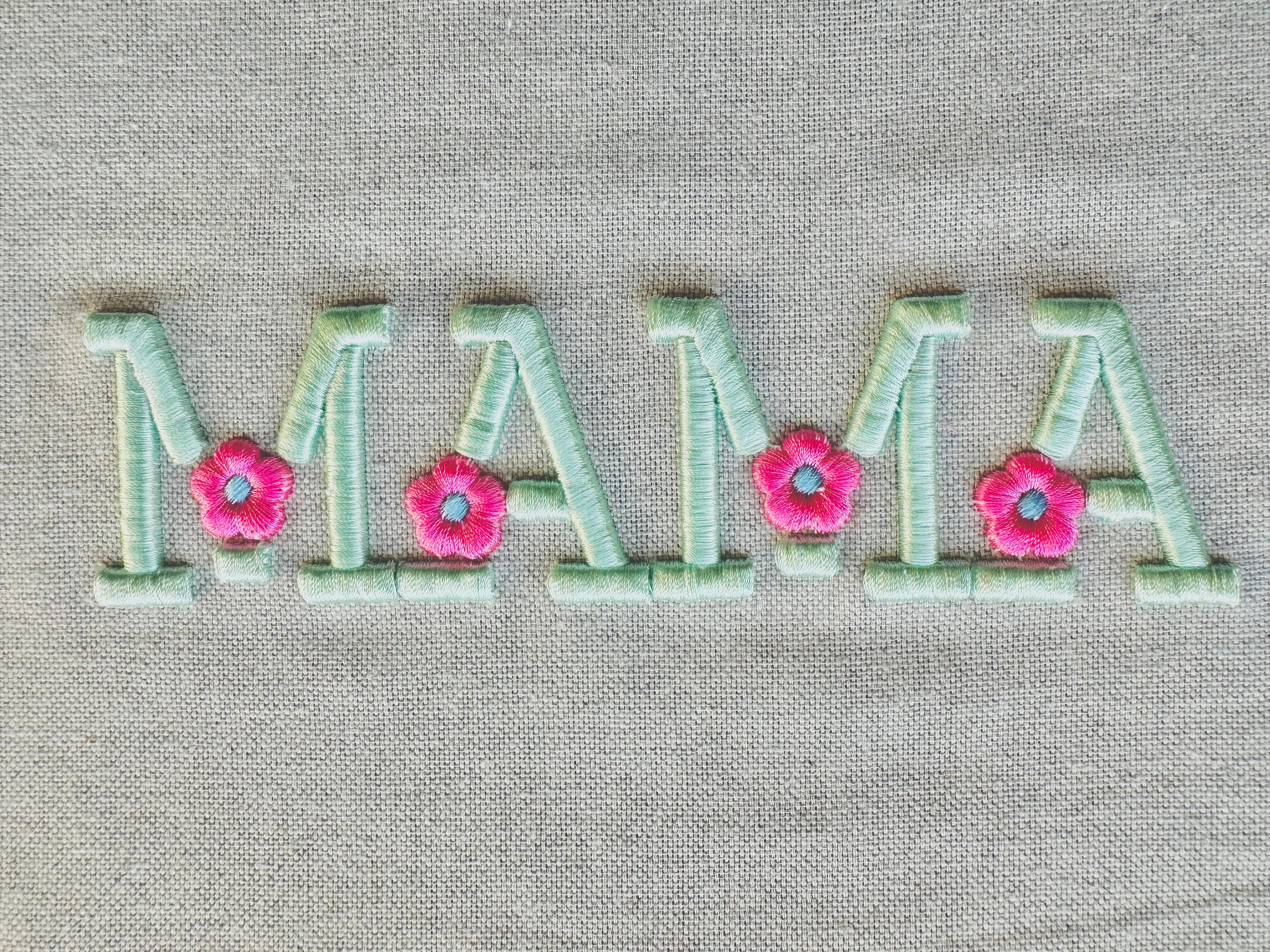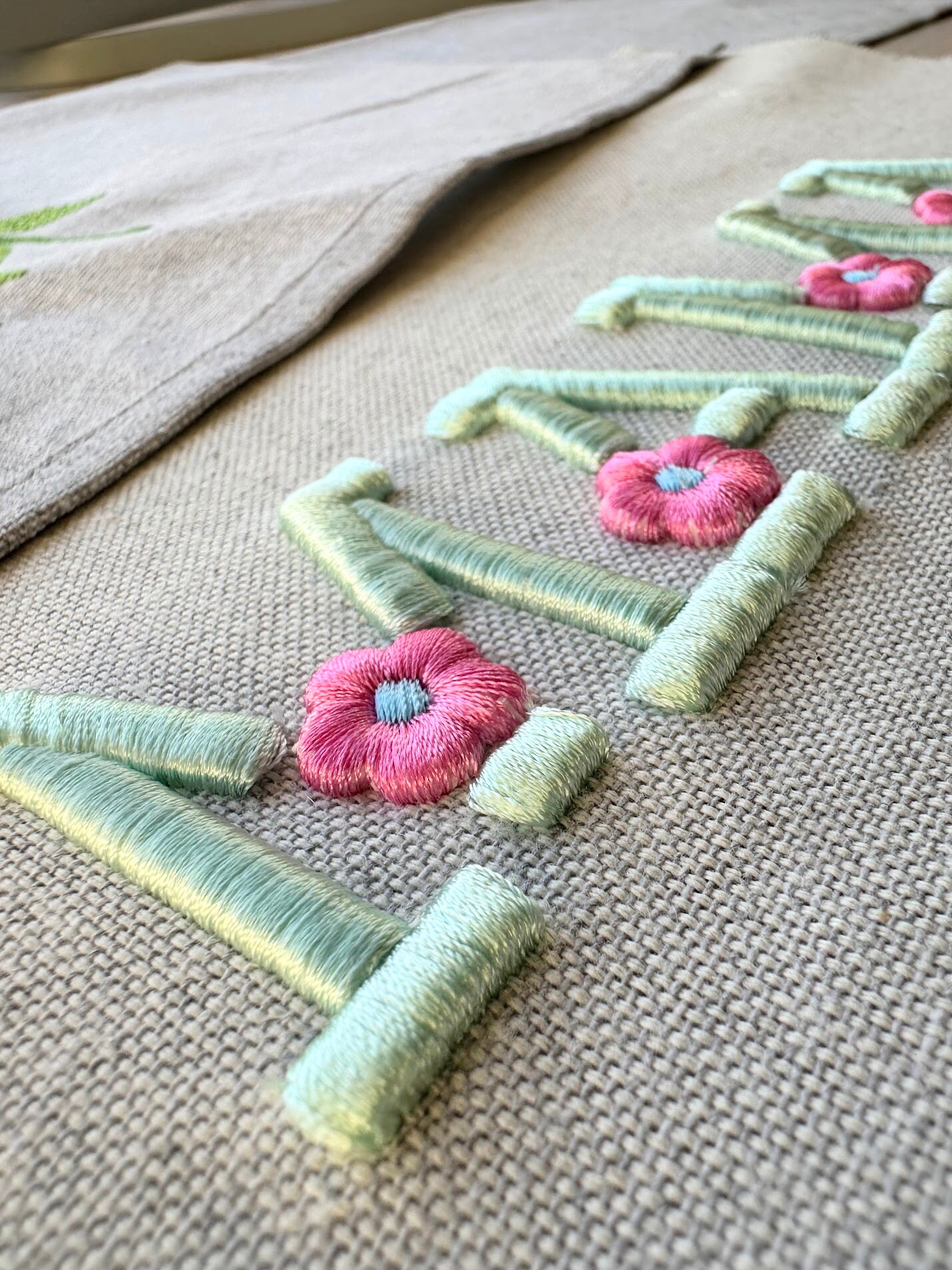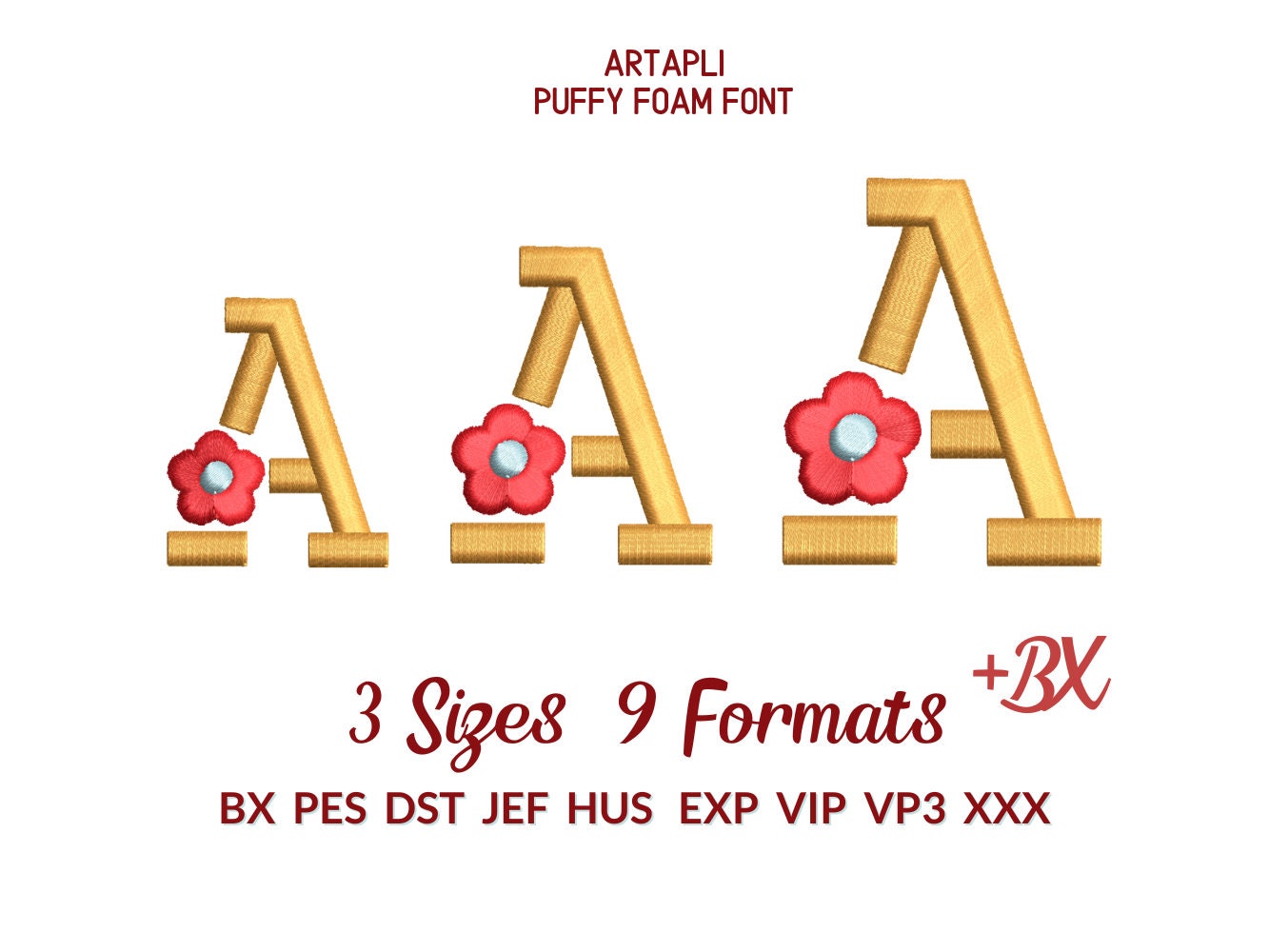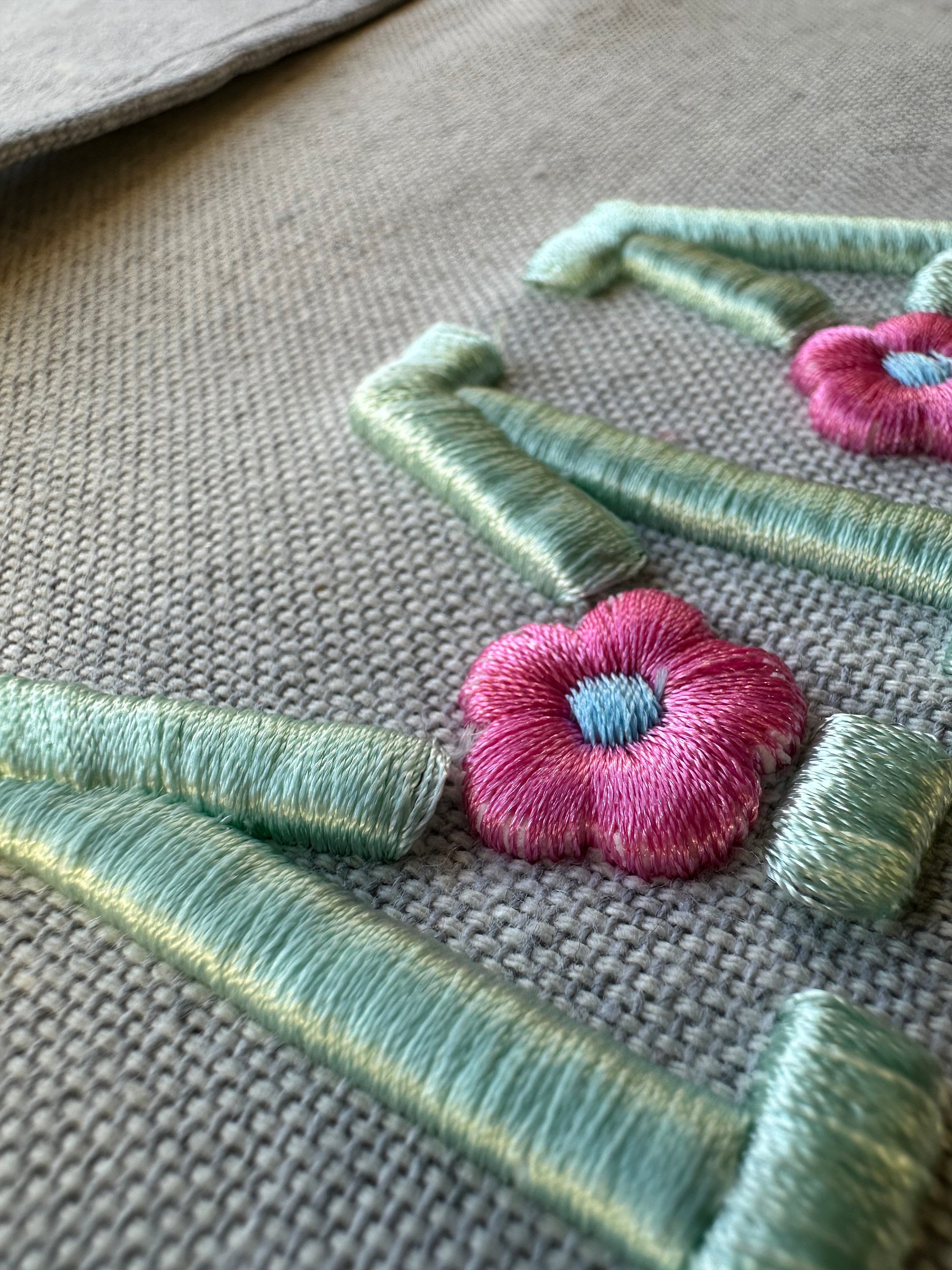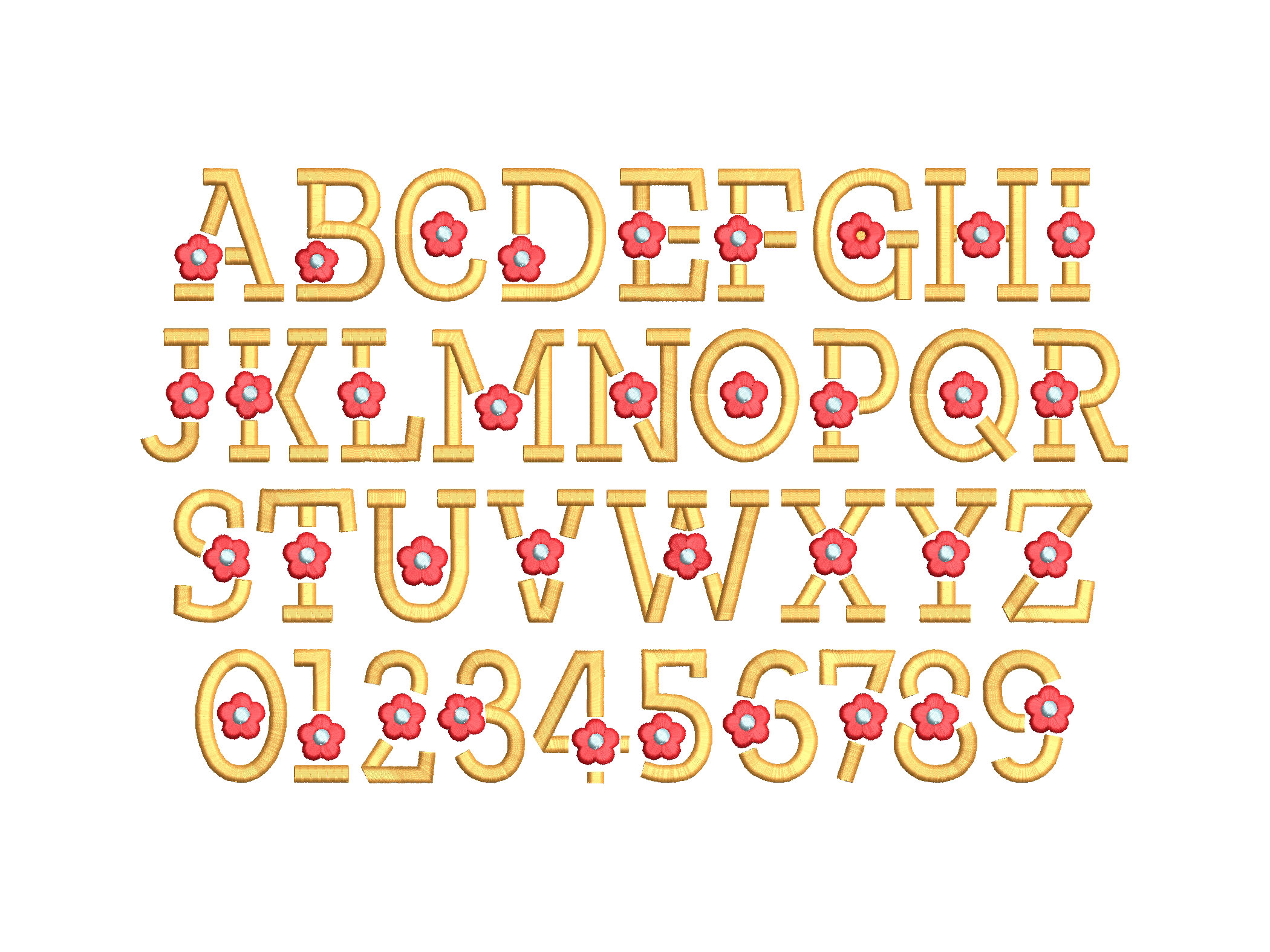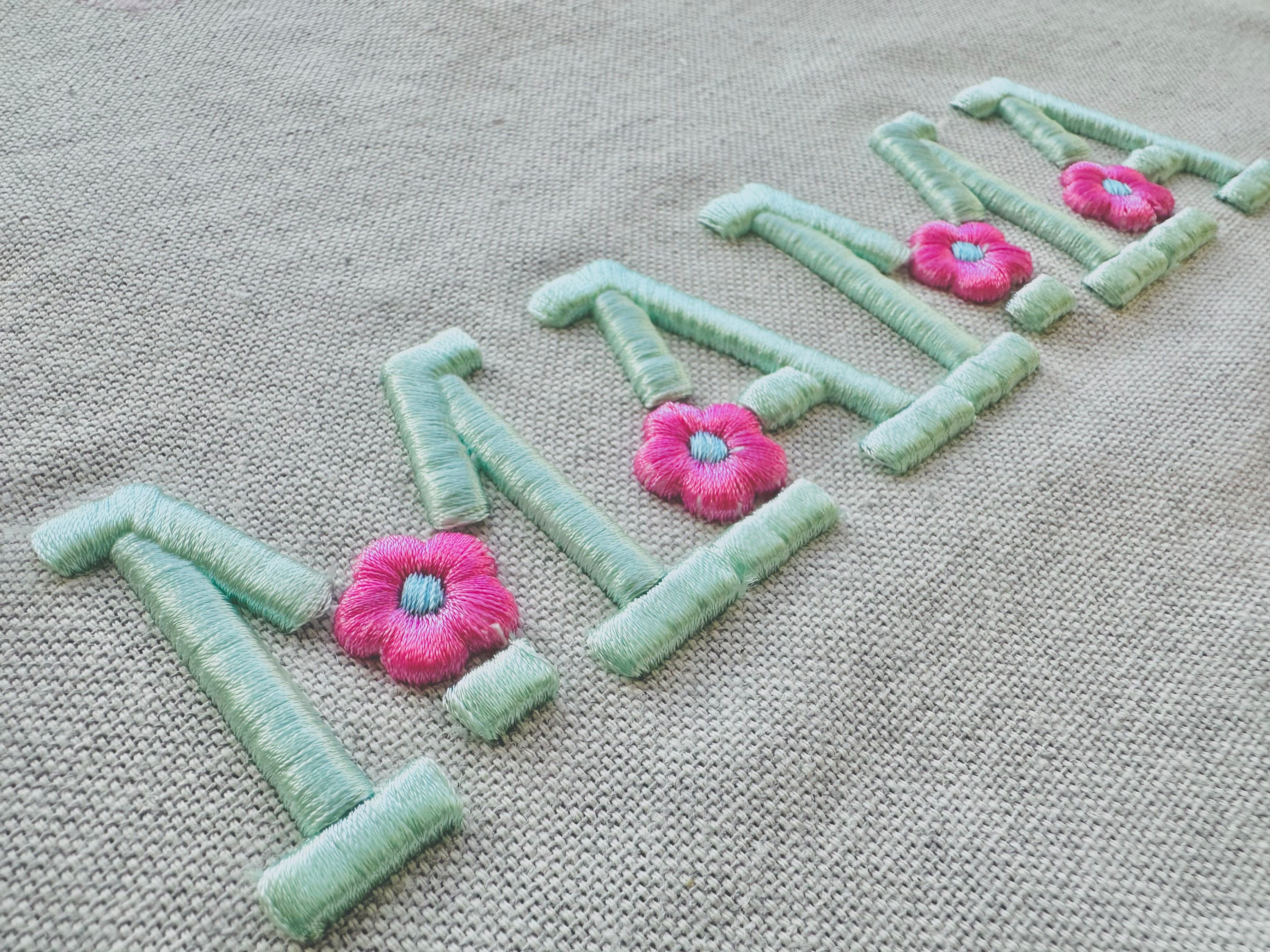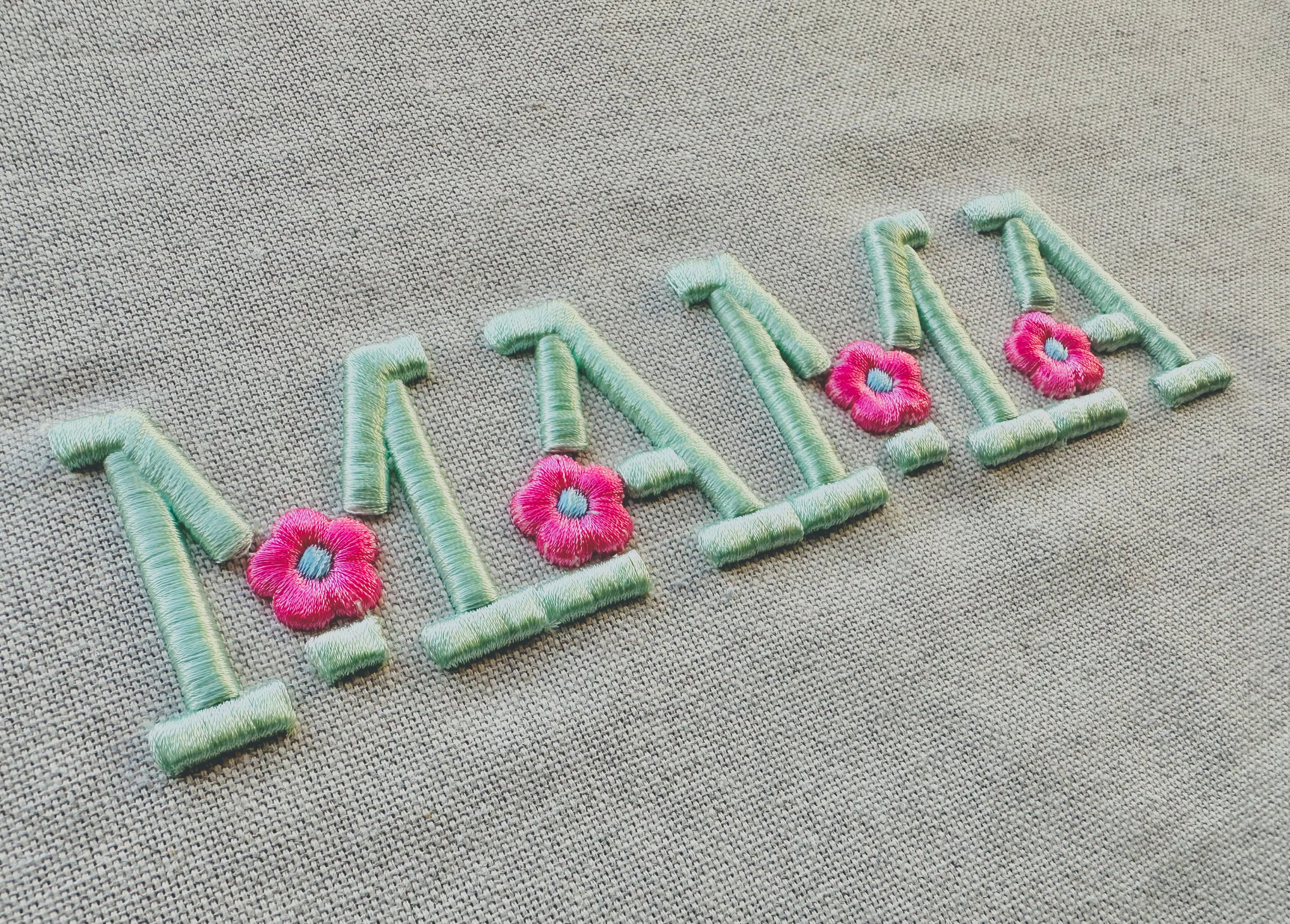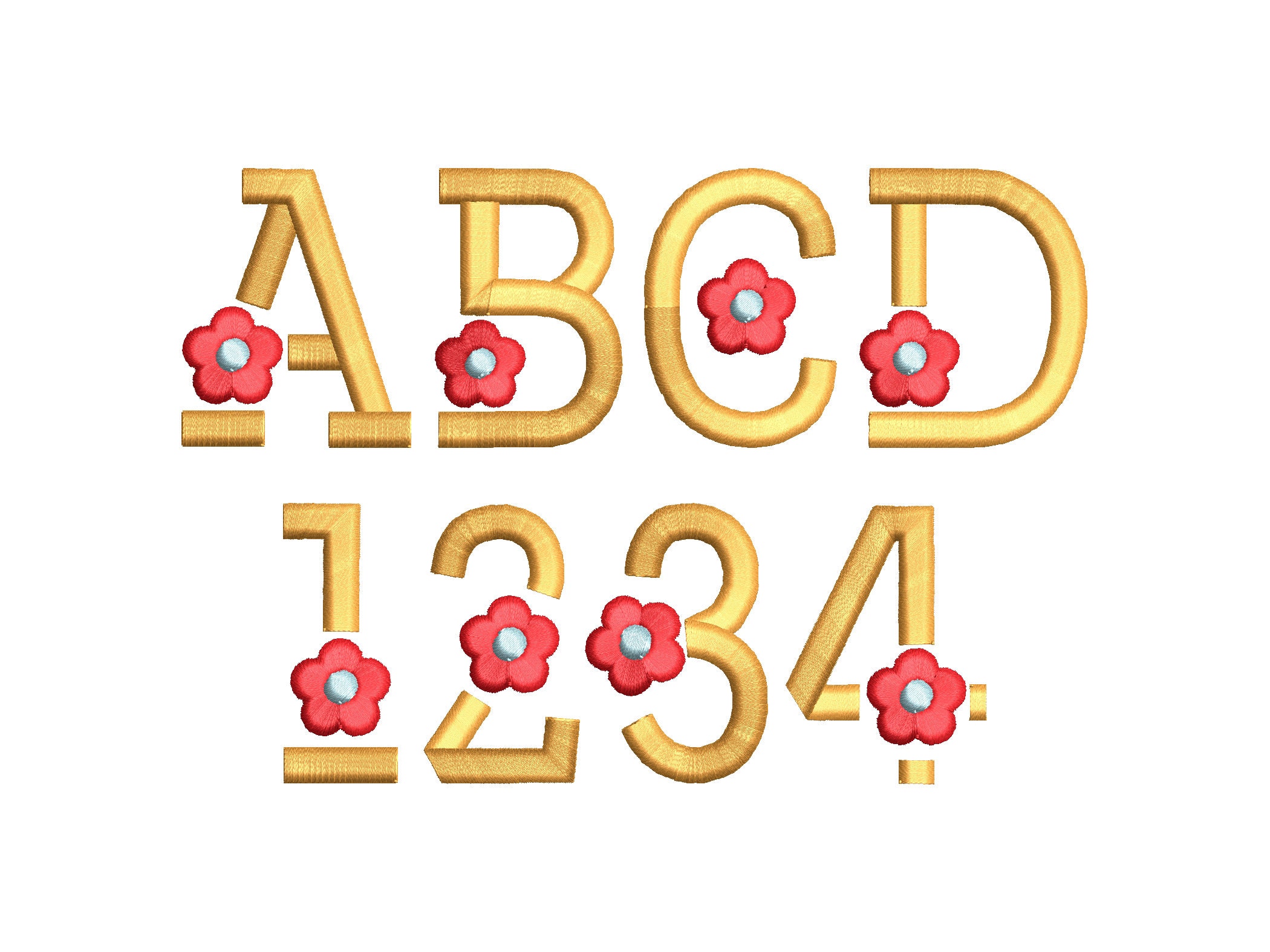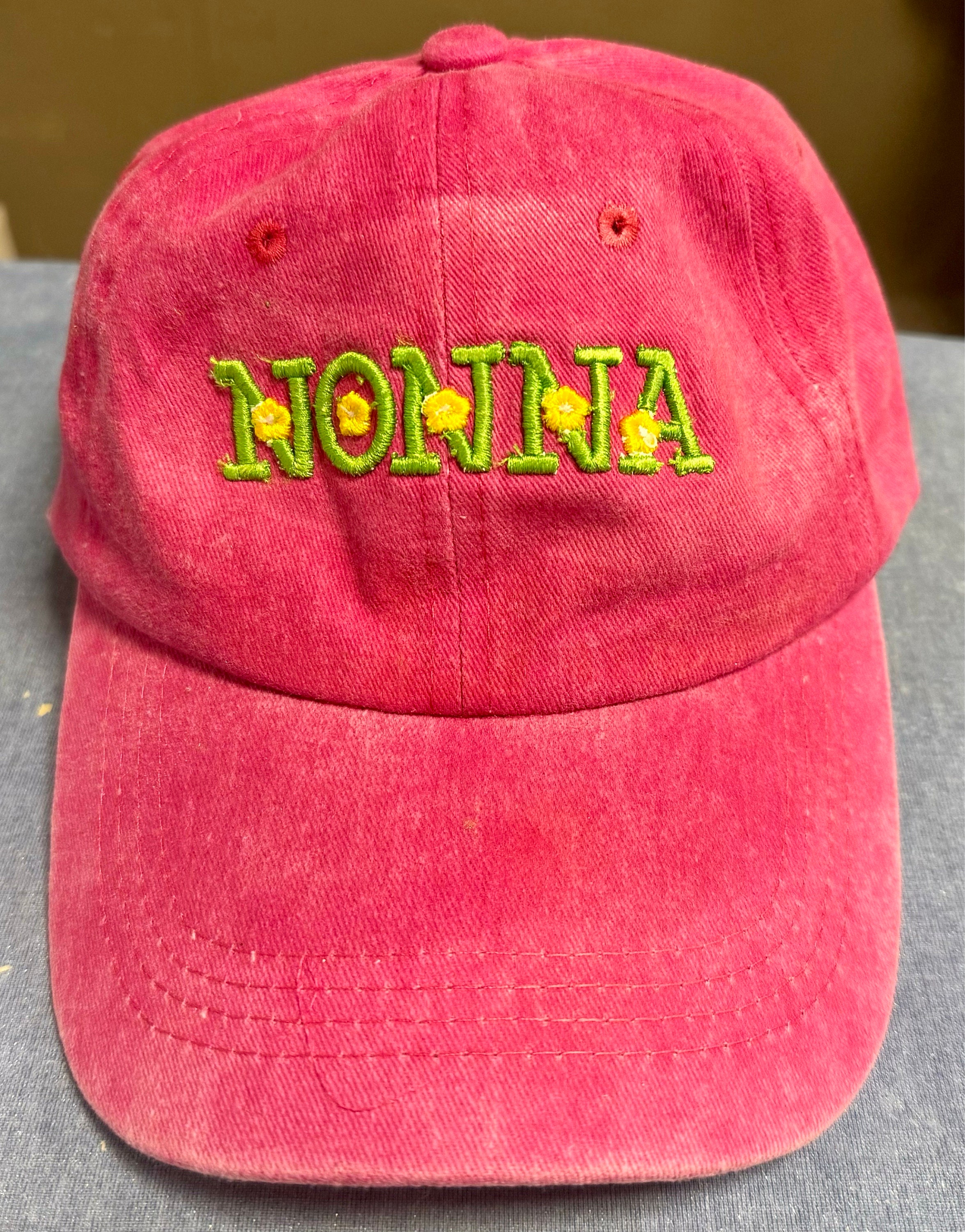
Floral Puff Embroidery Font puffy foam machine embroidery designs 3D raised alphabet monogram Daisy Flower Block Font 1.3, 1.7, 2 inch, BX
Whole alphabet A-Z uppercase and numbers 0-9.